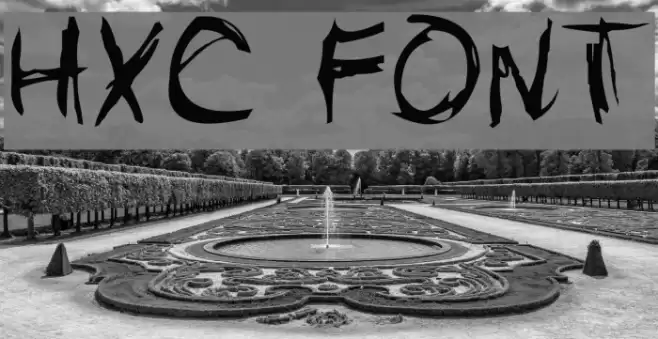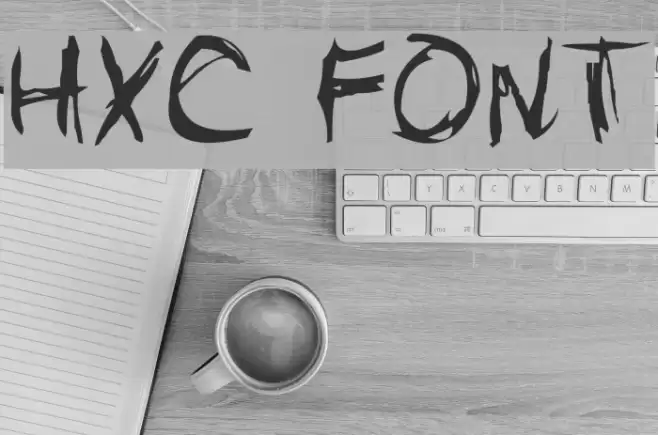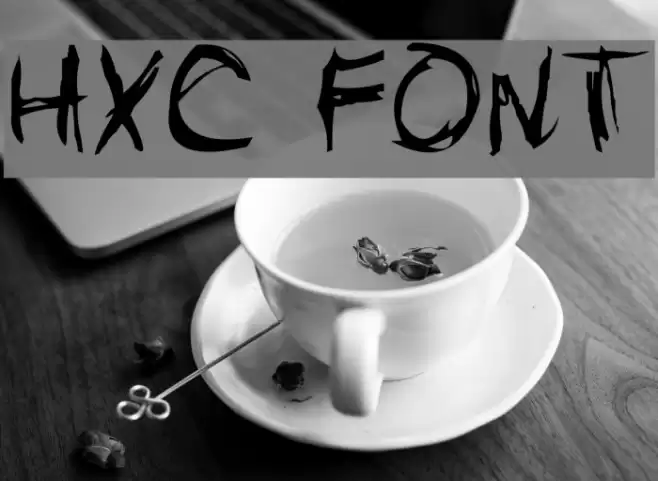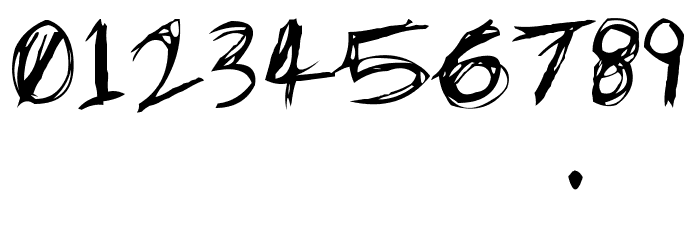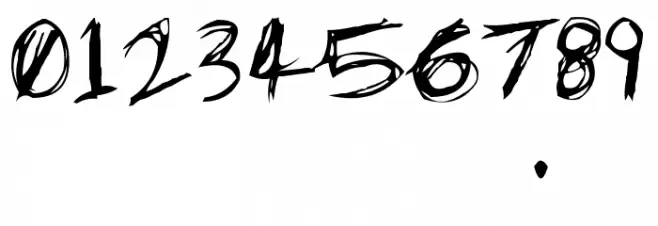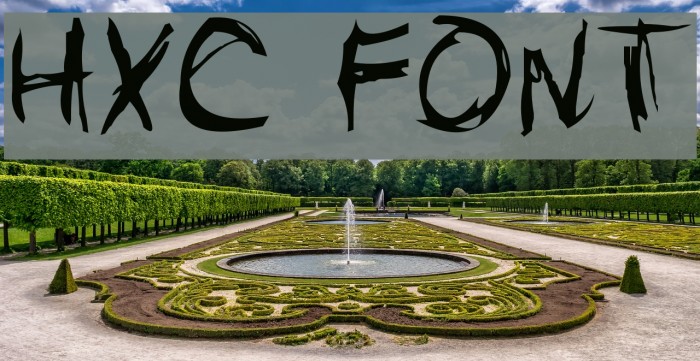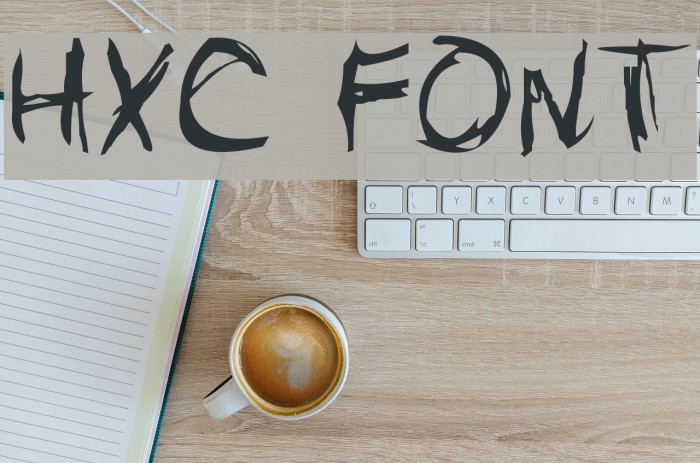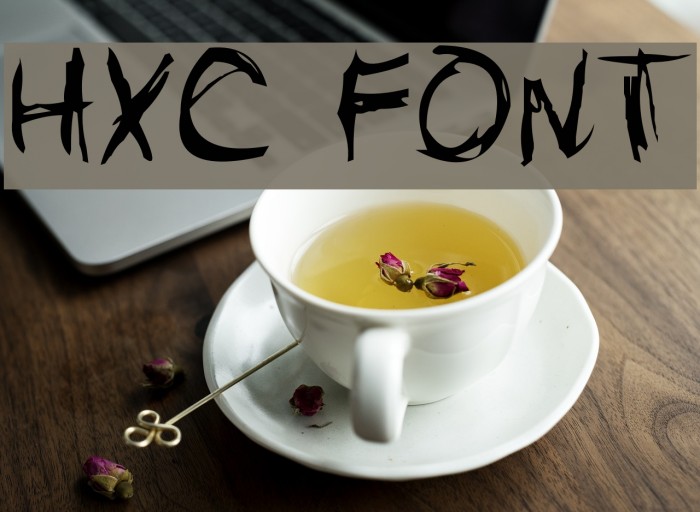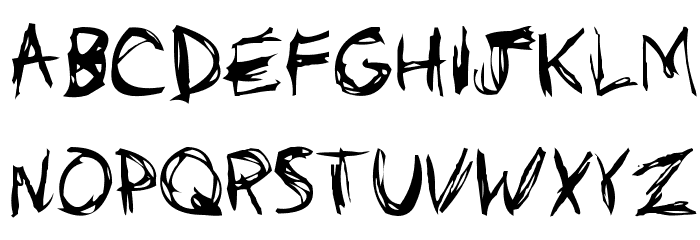
HXC Font
HXC Description
This font features a bold and dynamic brushstroke style, characterized by its energetic and chaotic appearance. The letters are crafted with a sense of movement and spontaneity, giving them a hand-drawn, artistic feel. The strokes vary in thickness, creating a high contrast that adds to the dramatic effect. Each character appears unique, with irregular edges and a slightly distressed look, enhancing its expressive nature. This font is ideal for projects that require a strong visual impact and a sense of creativity.
A bold, brushstroke font with high contrast and an artistic, chaotic style from Handwritten fonts.
- Proposed Projects: Perfect for album covers, posters, graffiti art, and any design needing a bold, artistic touch.